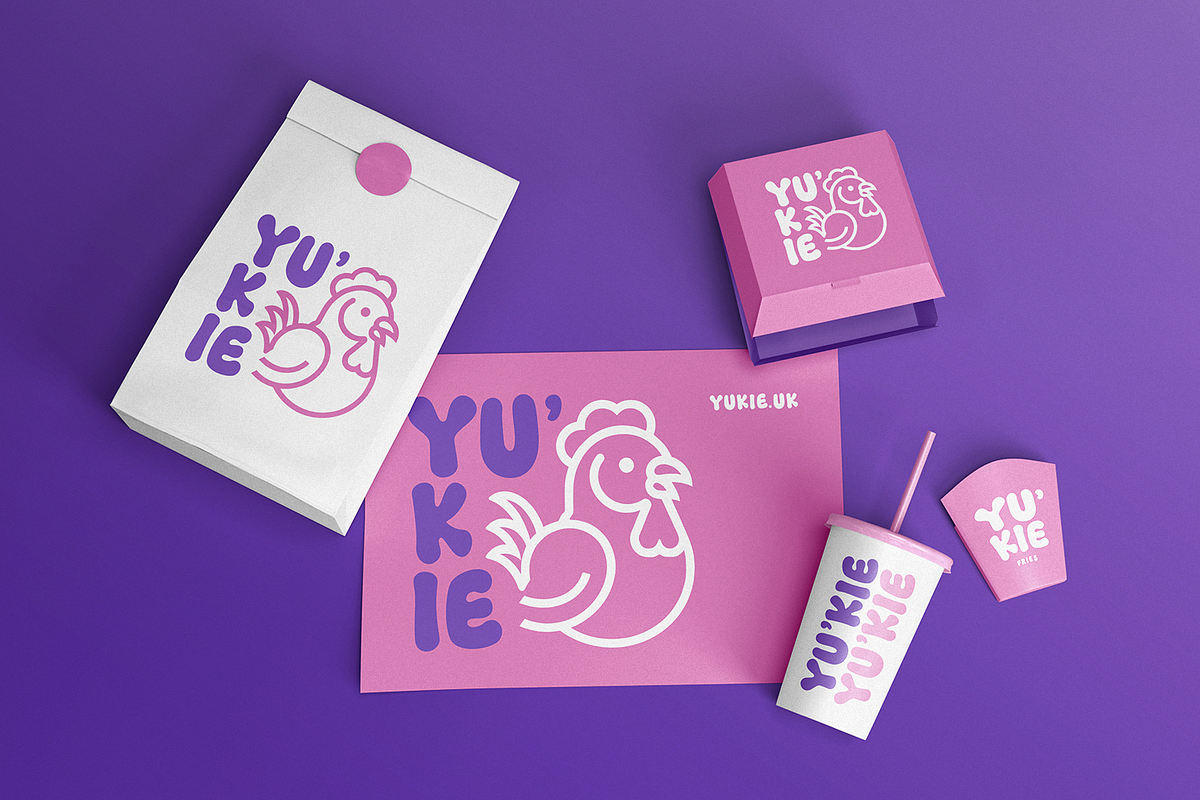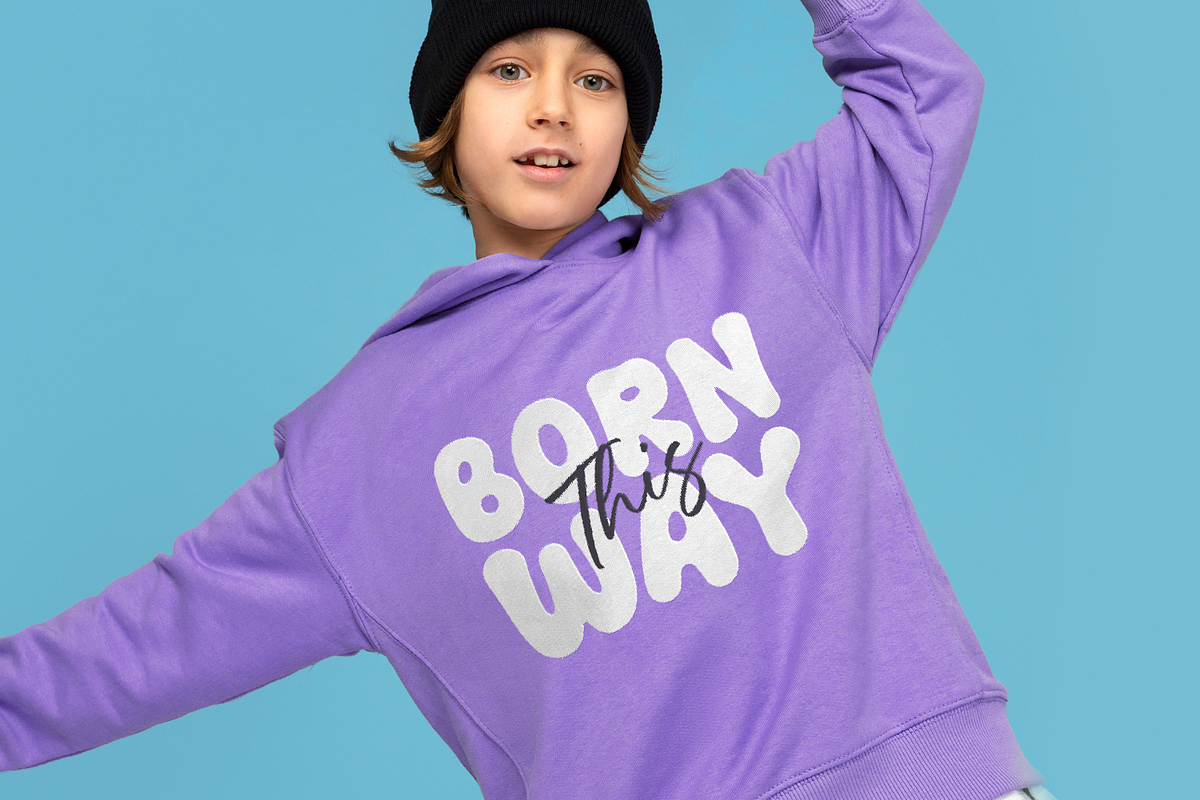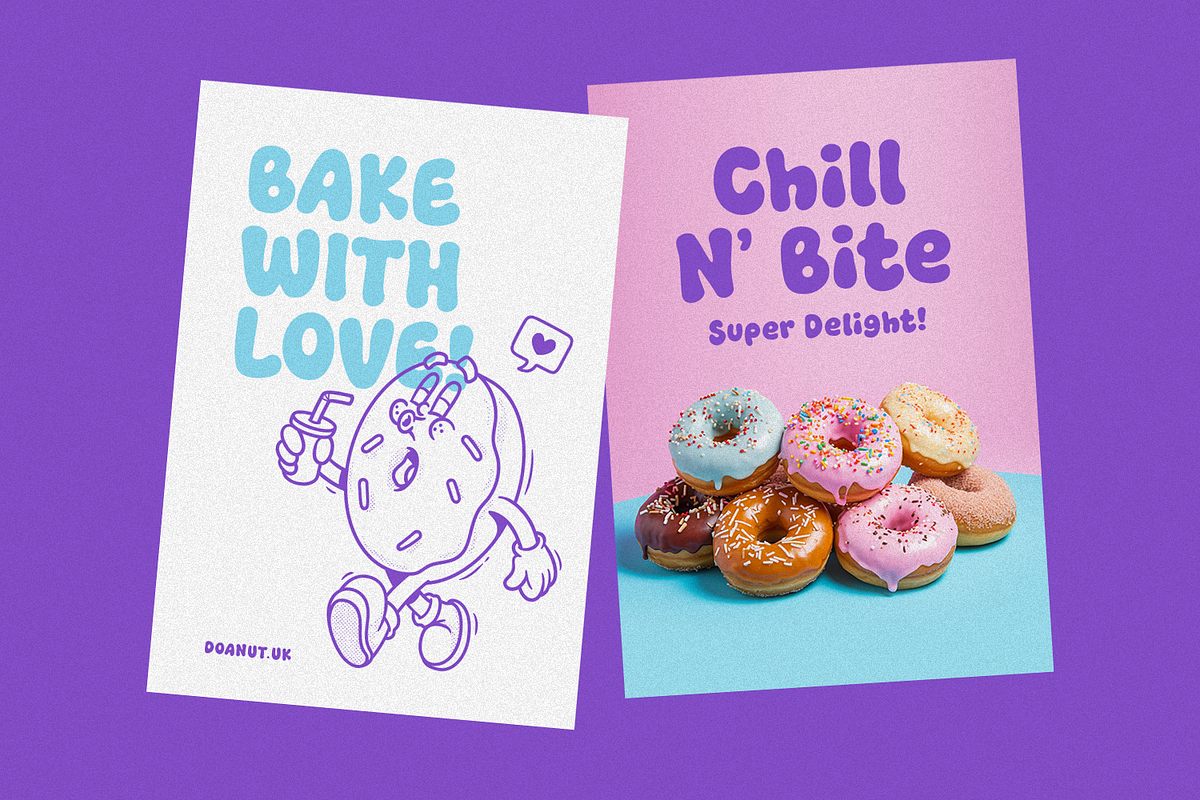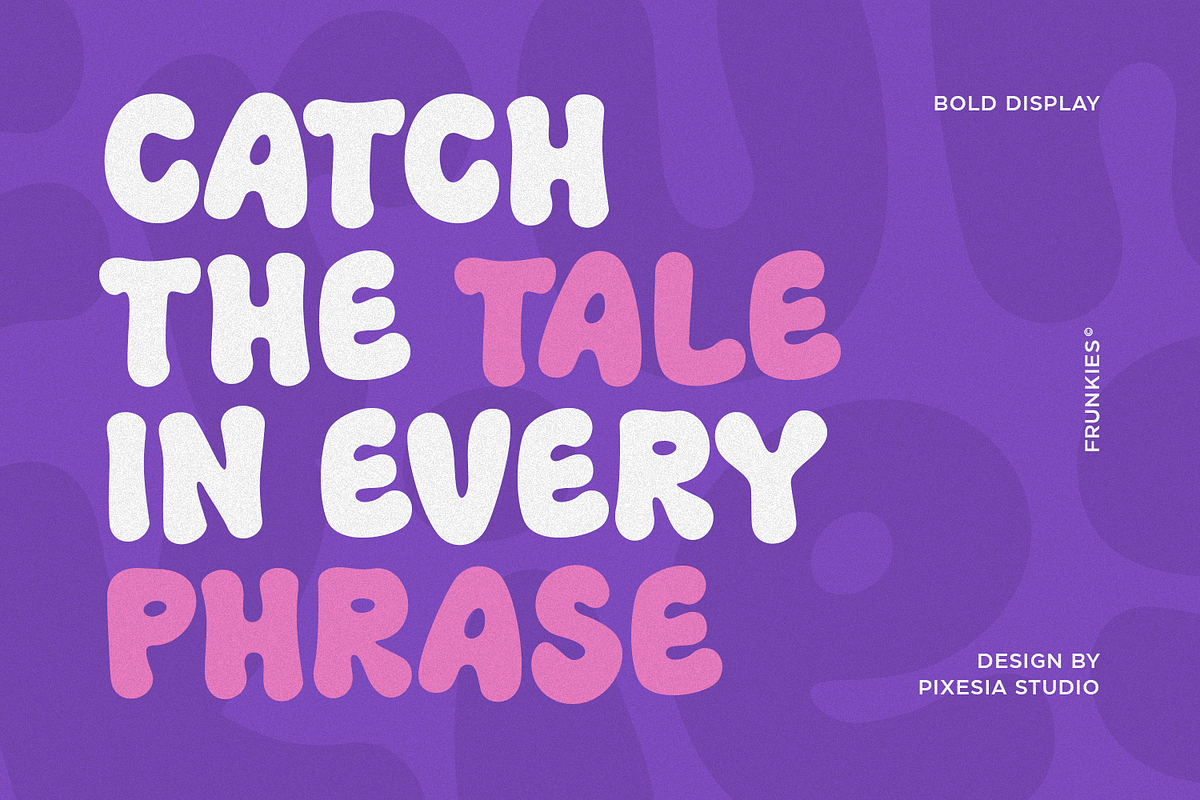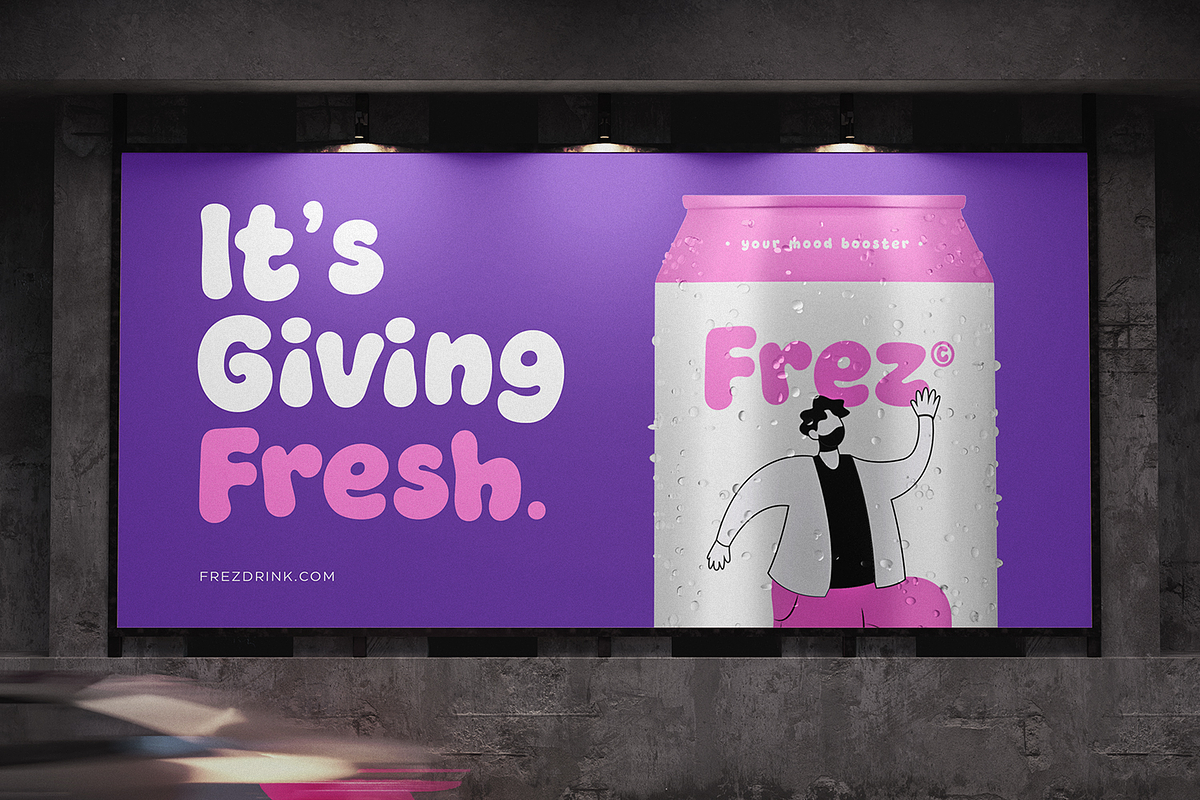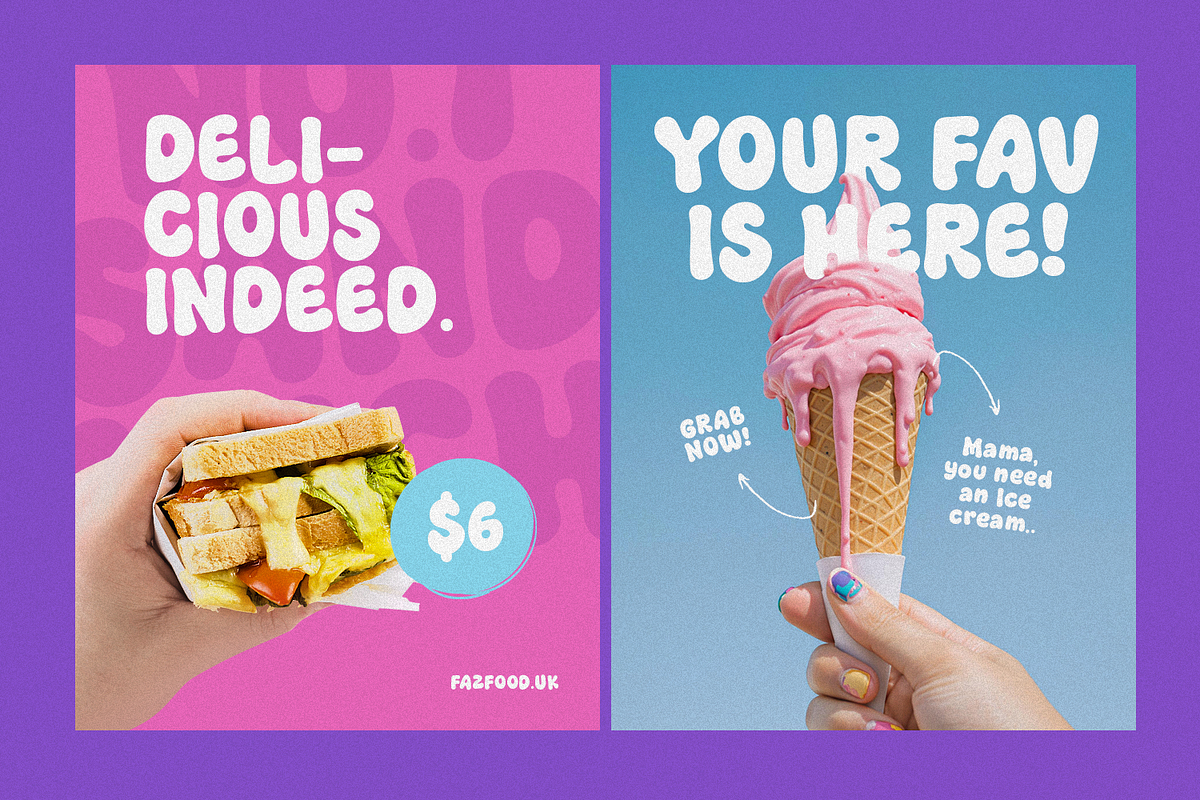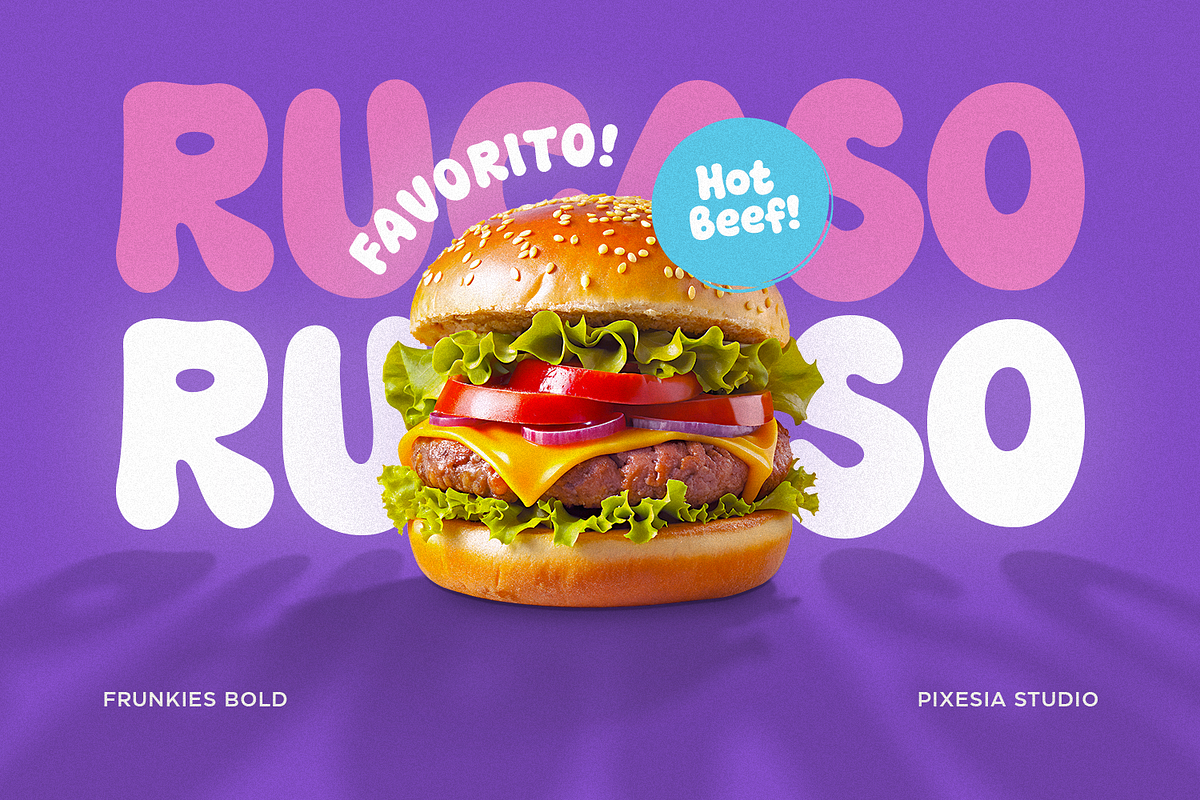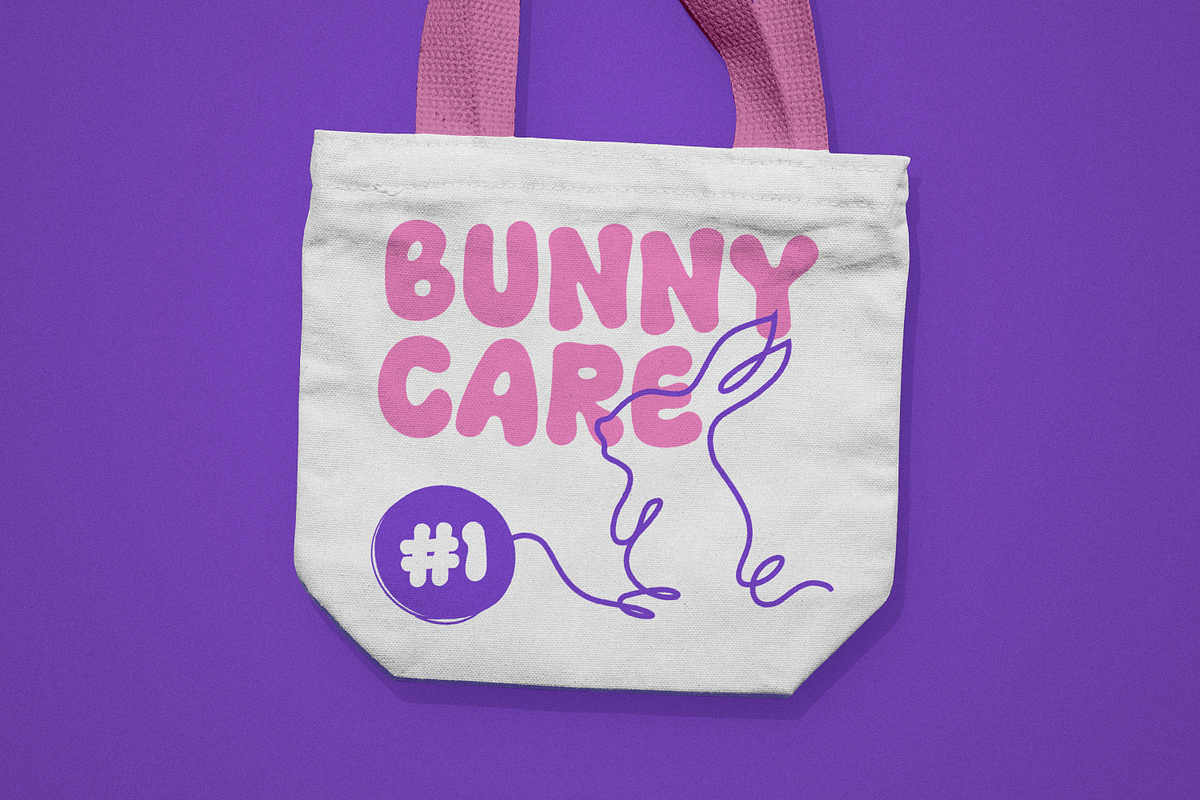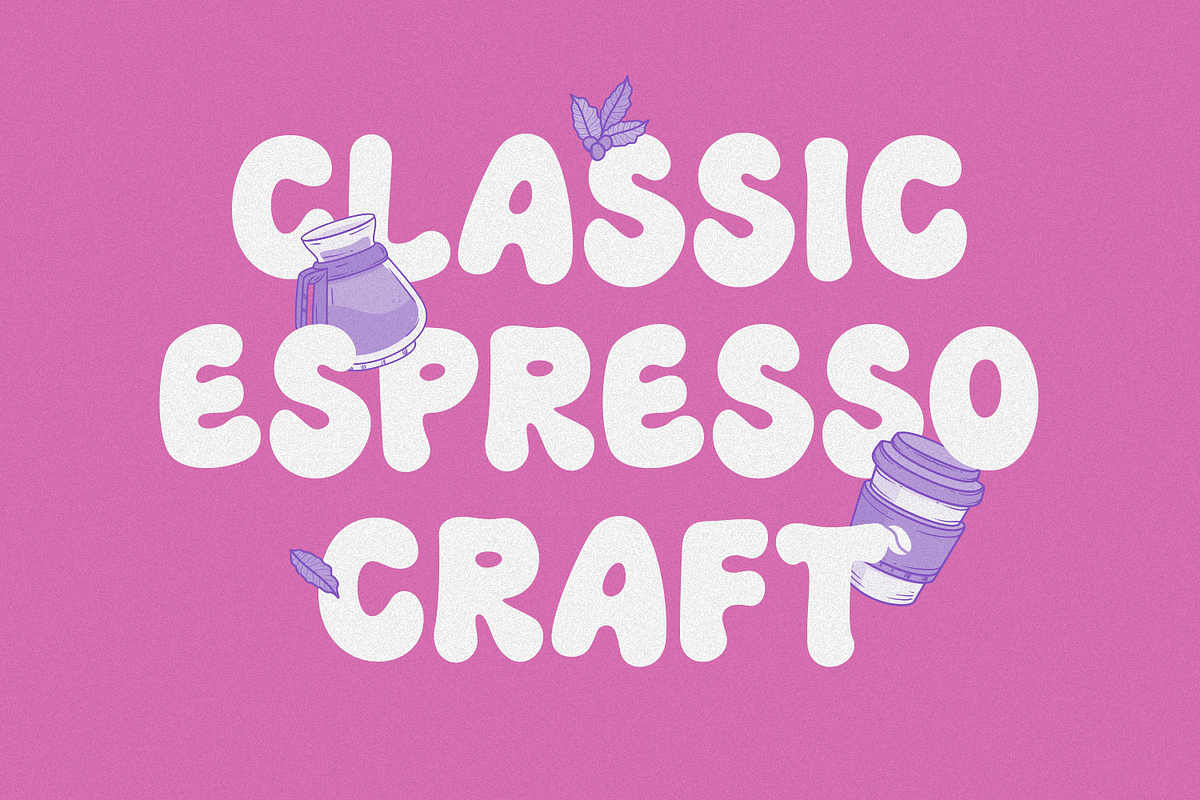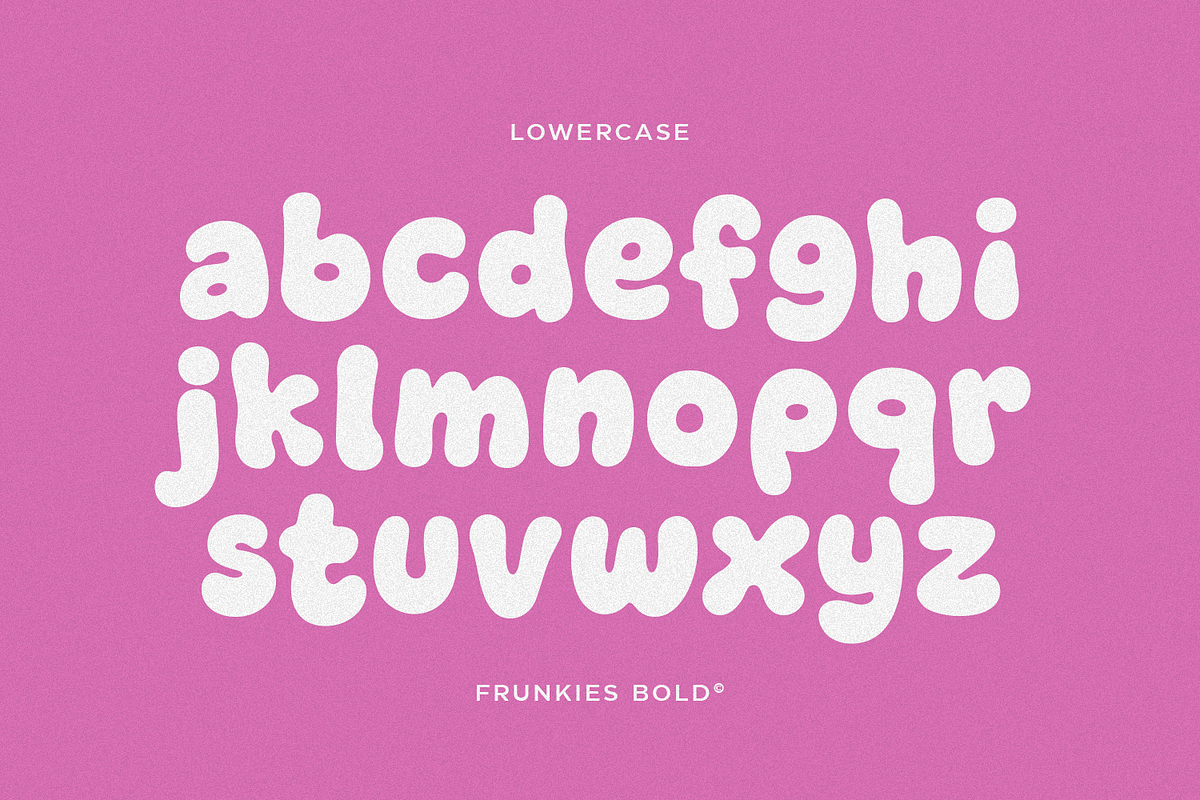
Frunkies – Chunky Bold Font
Introducing Frunkies – Chunky Bold Font
Frunkies is a bold, chunky, and playful display font designed to bring joy and personality into every project. With soft rounded corners, friendly curves, and a cheerful tone, this font sparks creativity and instantly makes any text feel fun, approachable, and character-driven. It includes multilingual support, stylistic alternates, and smooth readability—perfect for designs that need a warm and lively touch.
Ideal for kids branding, product packaging, stickers, games, educational materials, YouTube thumbnails, invitations, and cheerful logo design, Frunkies effortlessly lights up visuals with its cute and expressive style. Whether you're designing for children’s media or creating fun digital content, Frunkies brings charm and playfulness that stands out.
- Multilingual Support including Afrikaans, Albanian, Basque, Catalan, Danish, Dutch, English, Estonian, Faroese, Filipino, Finnish, French, Galician, German, Icelandic, Indonesian, Irish, Italian, Malay, Norwegian Bokmål, Portuguese, Spanish, Swahili, Swedish, Zulu